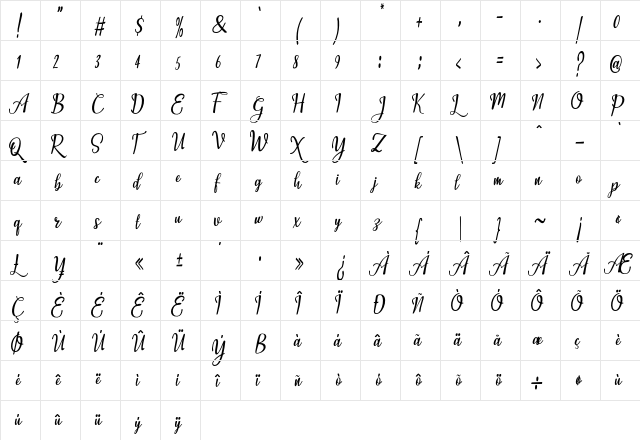
Michelle Stine Script Regular
| Foundry | Aqeela Studio |
| Designer | Aqeela Studio |
Design Context for Michelle Stine Script Typeface
Michelle Stine Script brings a calligraphic fluidity to the page — its connecting strokes and expressive curves give it an unmistakably human quality.
Font Pairing: Combine Michelle Stine Script with a simple geometric sans for maximum contrast — the tension between flowing curves and clean structure is a classic typographic pairing.
Pro Tip: Use Michelle Stine Script for short runs of text — names, titles, or taglines. Extended body copy in script faces tires the eye quickly.